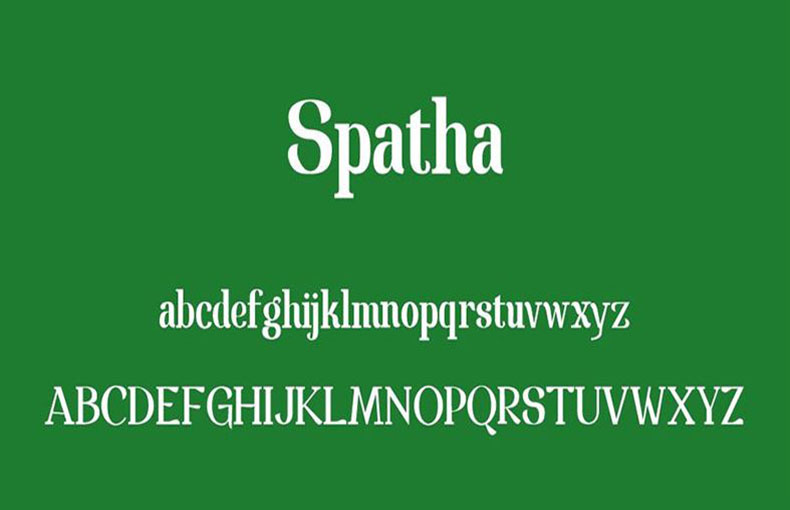
Spatha Font is a basic display typeface designed by Fernando Carvente. It comes in a single style that 210 glyphs and 47 binary stored kerning pairs.
It is a modern typeface that may be used for a number of design tasks, including editorial design, branding, and advertising.
The font has a refined and expert appearance due to its smooth curves and crisp lines. It is possible to utilize the flexible Spatha Typeface in both print and digital media. For headlines, subheadings, and body copy, it works perfectly.
The same-named ancient Roman sword served as the source of inspiration for the Spatha Font’s design. The font’s name reflects this source of inspiration and lends the design a dash of historical significance.
It is a well-made and visually pleasing typeface that can give any design project a trendy and polished look.
Usage Of Spatha Font
It is a fantastic choice for branding, web design, editorial projects, web design, product packaging, logos, book layouts, album art, merchandise, promotional materials, and many more uses because of its legibility and versatility. Articles, presentations, titles, animated logos, etc. can all be created.
Both print and digital media can benefit greatly from its crisp edges and gentle curves, and its historical inspiration adds depth and significance.
And this font supports 68 different languages.
What is Spatha Font?
Spatha Font is a trendy and distinctive typeface that is used in writing and designing to give the text a unique appearance.
Where can I use Spatha Font?
It can be utilized to grab attention in logos, posters, headers, and other creative tasks.